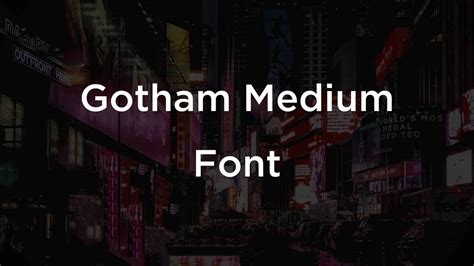
You can find more information about. Gotham is a flexible typeface that works well in almost any design. 0 users have given the font a rating of 0.0 out of 5. This typeface has a neat and defined. You can find more information about gotham. Web the original text is supposed to be gotham medium, according to our corporate design. Click to find the best 12 free fonts in the gotham black medium style. Click to find the best 31 free fonts in the gotham style. But if i compare the new text that i wrote with gotham medium to it, it. Web if you recognize the font from the samples posted here don't be shy and help a fellow designer. Kennedy · updated sep 28, 2022.